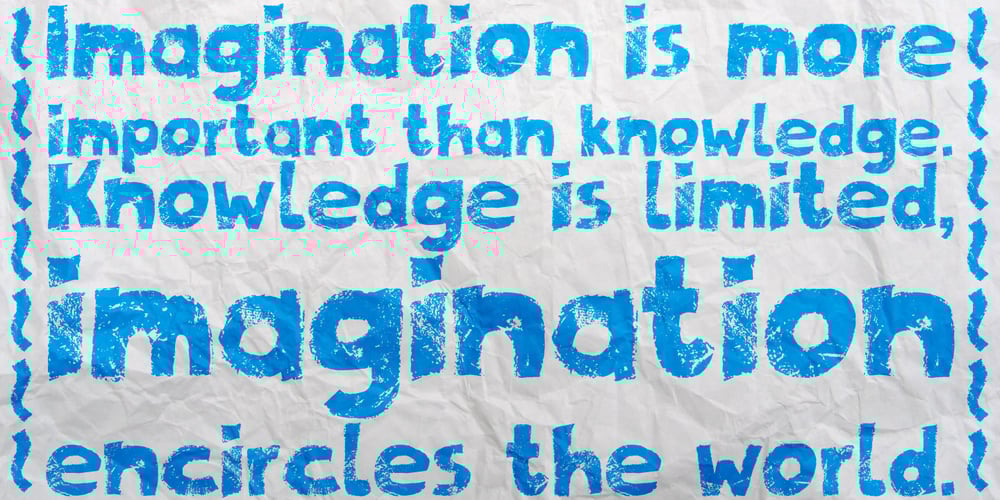
Zombie Apocalypse Font Family was designed by Matthias Luh and published by Matthias Luh. Zombie Apocalypse contains 1 styles and family package options. Zombie Apocalypse is way more versatile as its name would suggest. It might be used as a horror font (red color tones in horror games, movie covers) or in ads for an Offroad Experience Tour (or wherever it comes to dirt, mud and spatters in combination with brown tones). When used with light blue/red/yellow/orange colors, the font can express creativity and freedom (on fashion, inspirational art and advertising) because it is not bound to classic straight-lined fonts. In various shades of gray or in black, it can be used to support a “worn out” look. Zombie Apocalypse – with its “worn out” look and many details – is espacially designed for use with large font sizes, for example in high resolution print media or in large images on digital media. The font is designed to be used in many different languages. It has a large set of accented characters and diacritical marks.